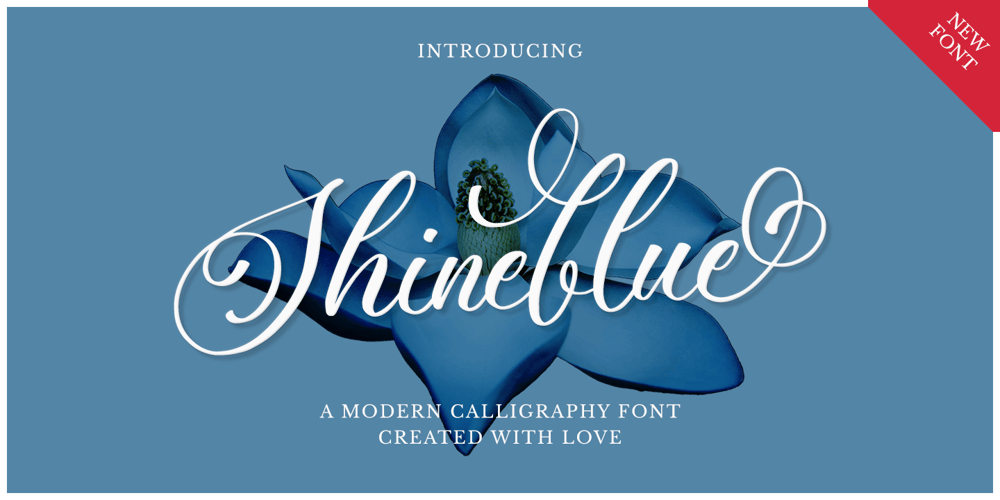
Shineblue
Shineblue font
Shineblue Font Family was designed by Hayinah and published by Rockboys Studio. Shineblue contains 1 styles and family package options. Shineblue is a beautiful light handwritten font with a unique feel and a stunning impact. It will add a luxury spark to any design project that you wish to create!